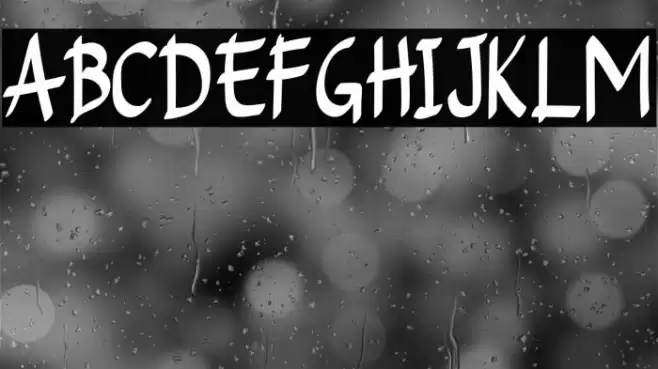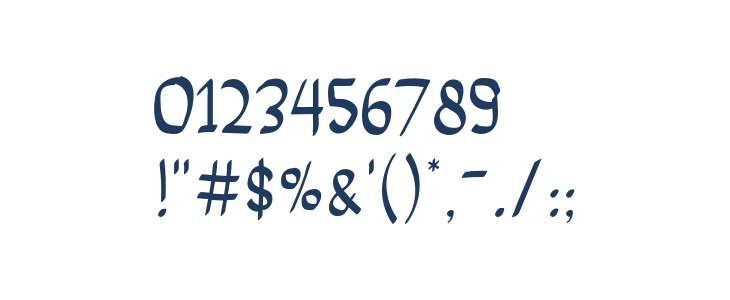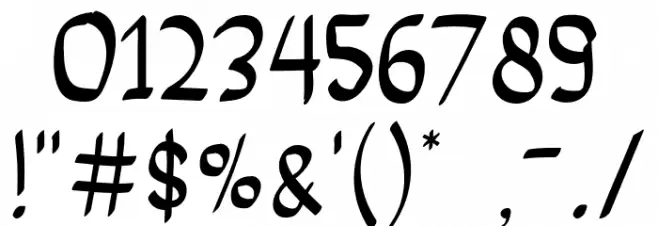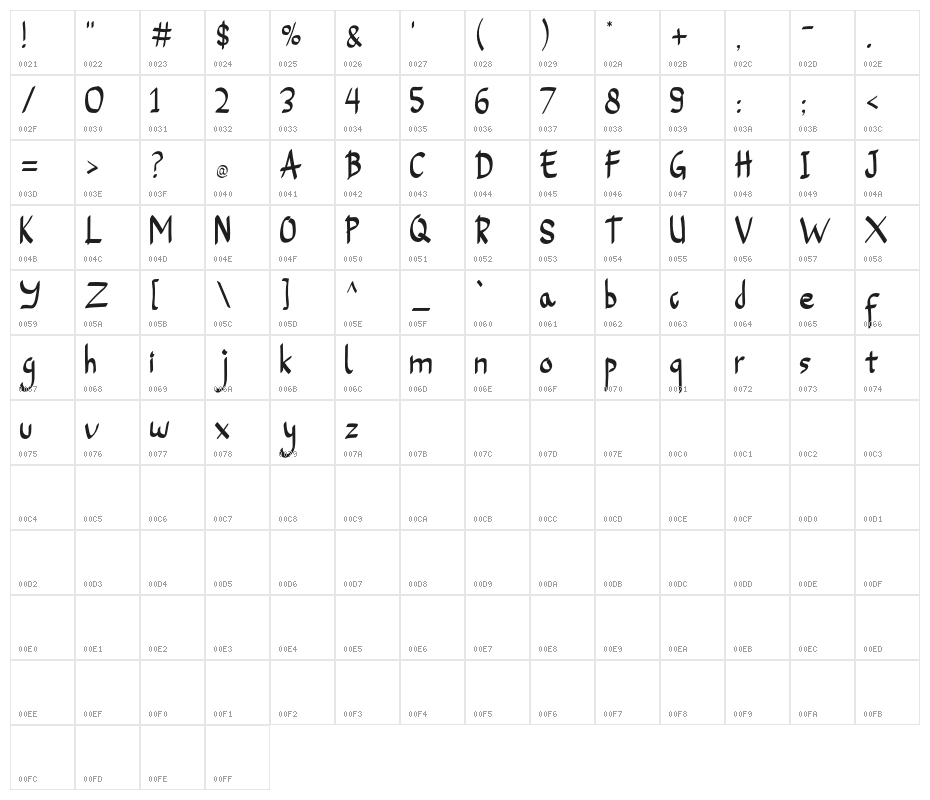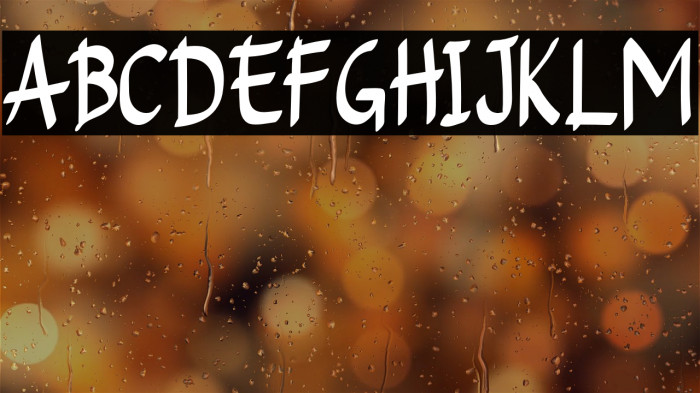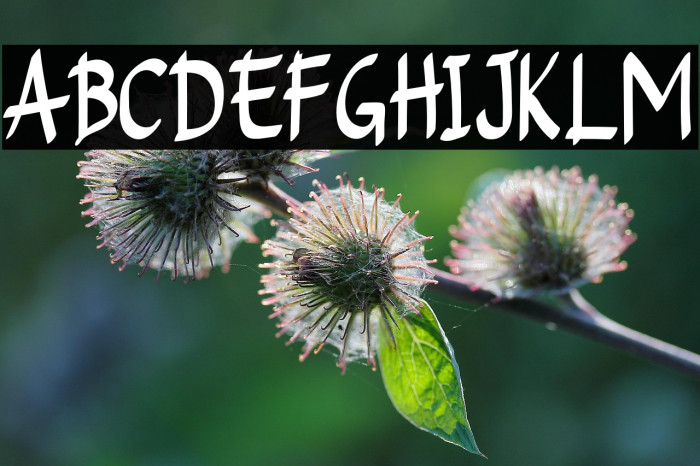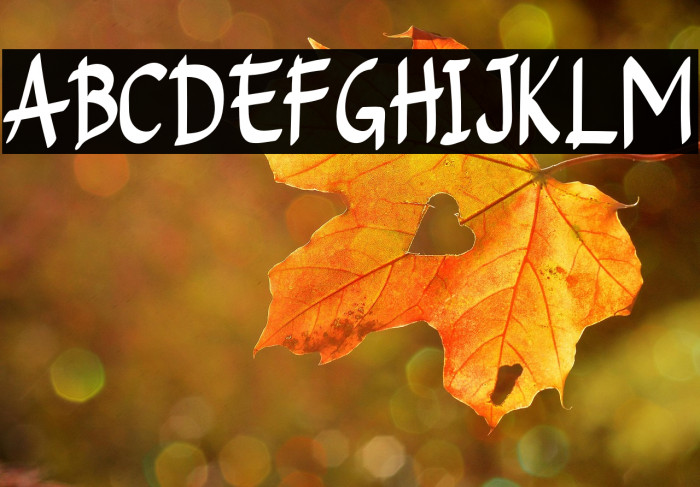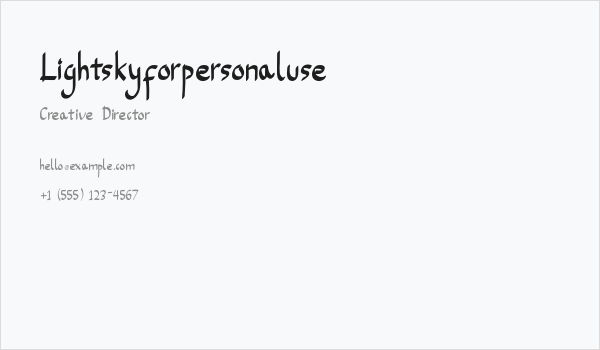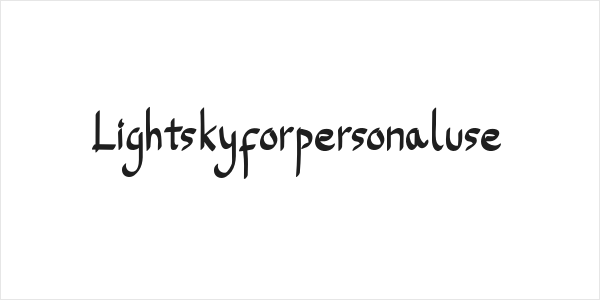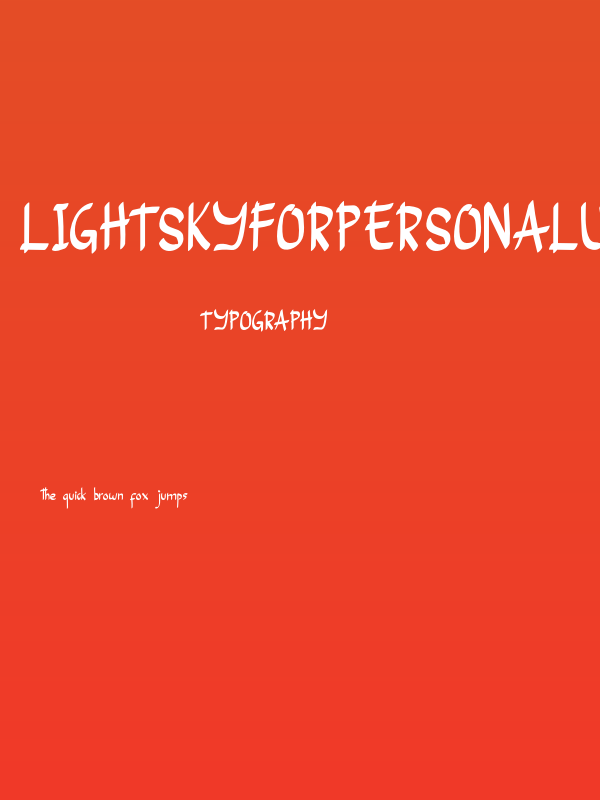
Lightskyforpersonaluse Font
Lightskyforpersonaluse Description
This font features a playful and dynamic handwritten style, characterized by its irregular strokes and slightly slanted letters. The uppercase letters are bold and assertive, while the lowercase letters maintain a consistent flow, adding to the font's casual and friendly appearance. The numerals are clear and distinct, matching the overall style of the alphabet. Special characters are creatively designed, maintaining the whimsical nature of the font. The strokes vary in thickness, giving it a lively and energetic feel, suitable for projects that require a personal touch.
A playful, handwritten font with dynamic strokes and a casual style from Uncategorized fonts.
- Font: Lightskyforpersonaluse
- Proposed Projects: Ideal for greeting cards, children's books, playful branding, and casual invitations.
- Overall Style: Casual, Playful
- Use Case: Headlines, Logos, Invitations